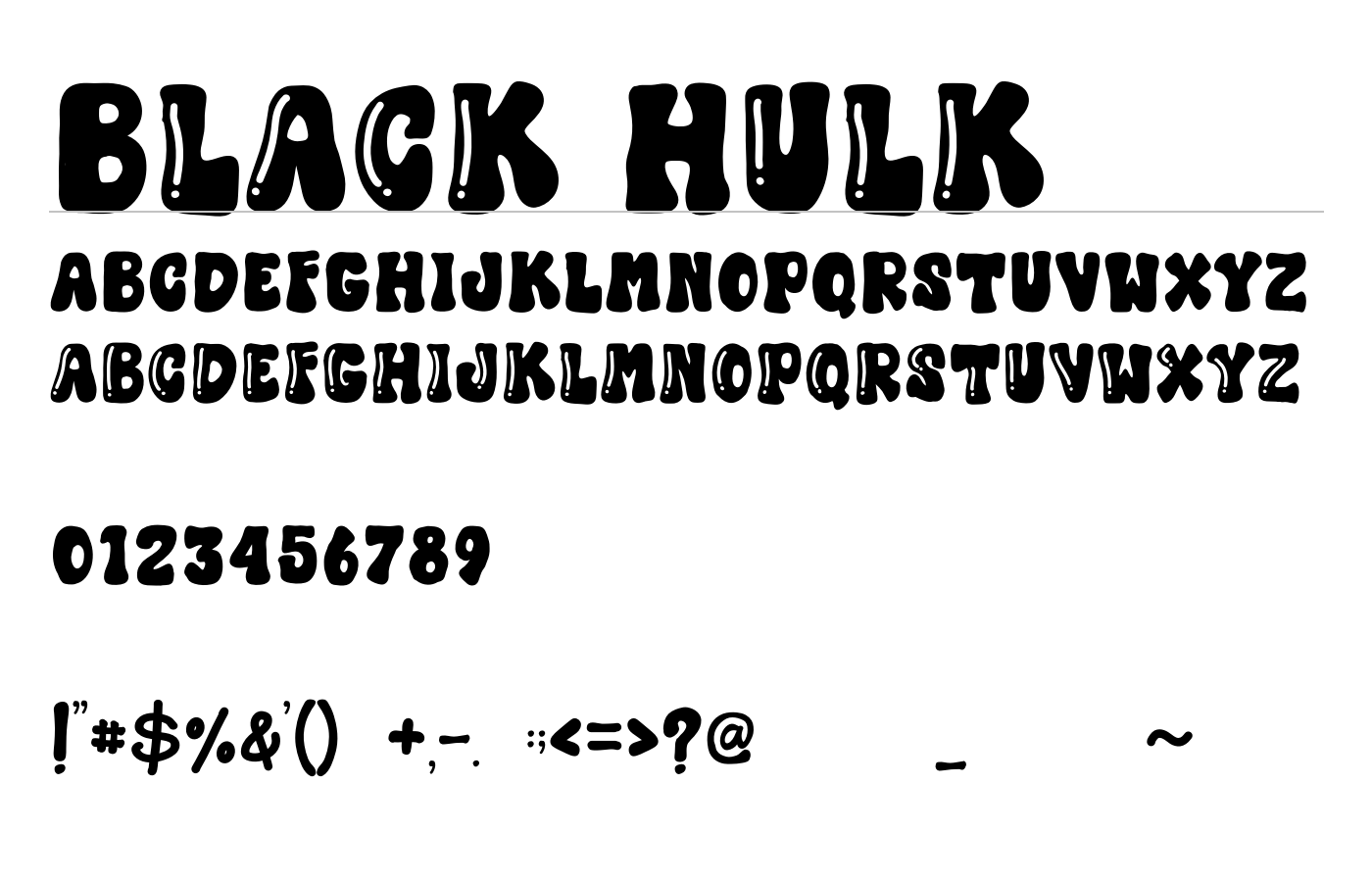
Black Hulk Font is a bold, playful sans serif typeface with thick, rounded letterforms that convey a fun and energetic vibe. Its chunky, irregular shapes and bubbly style make it perfect for eye-catching headlines, posters, and creative branding that demands a lively, informal personality. This font works especially well in designs aimed at younger audiences or projects seeking a whimsical, strong impact.
Black Hulk Font